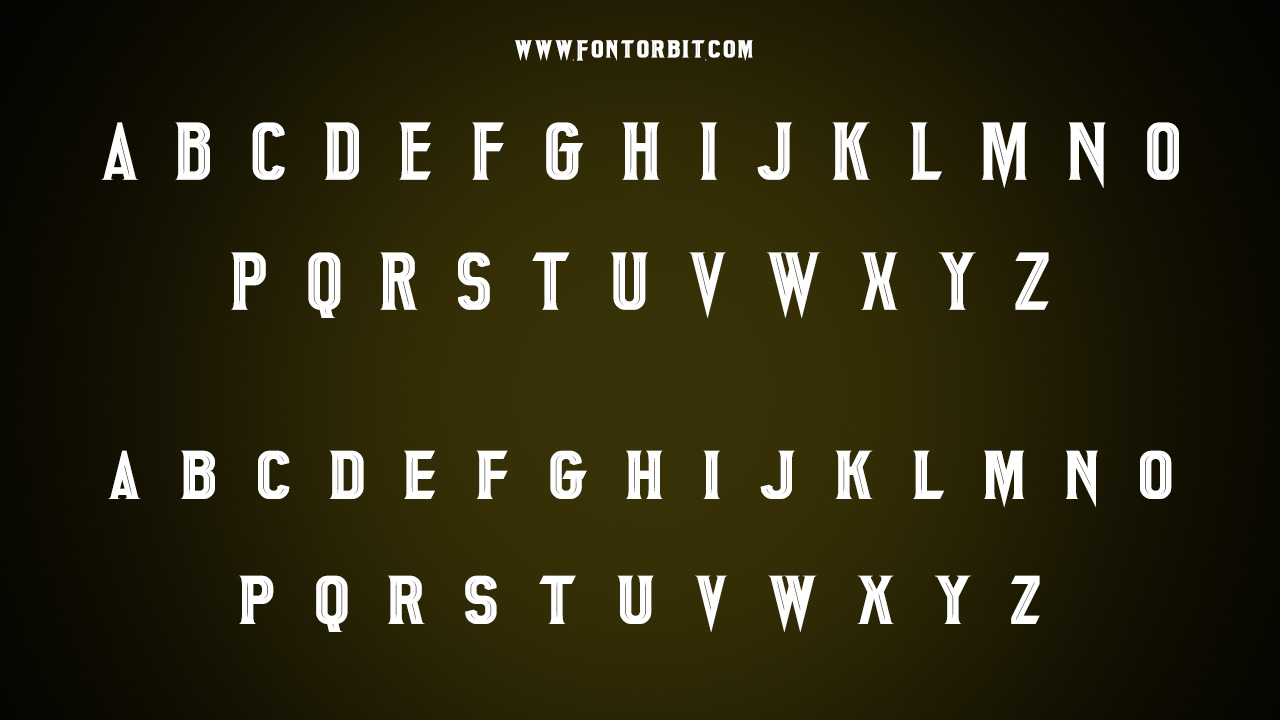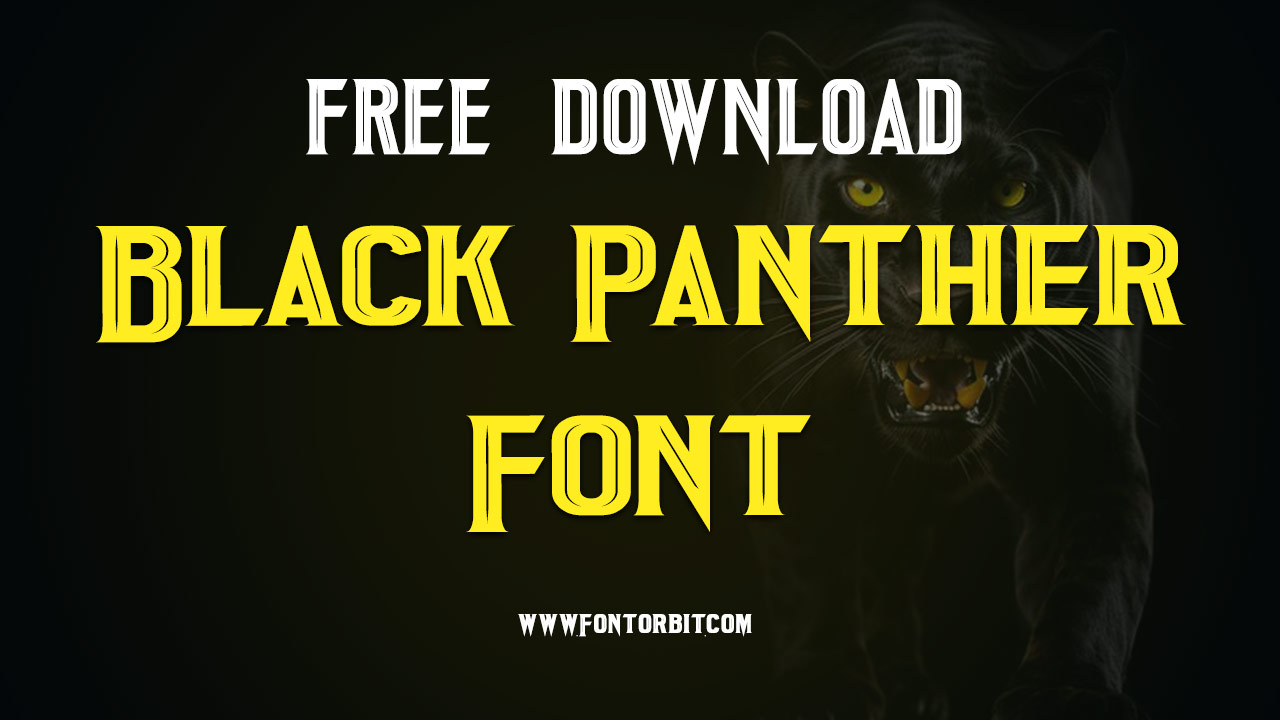
The Black Panther font draws inspiration from the sleek and powerful aesthetic of the Marvel superhero “Black Panther.” While not a single font but a series of similar fonts, designers such as Mark Simonson have contributed to the creation of typefaces like Panther Black, a bold and striking font style. The font was popularized around the release of the Black Panther movie in 2018.
The Black Panther font family features a variety of bold, modern typefaces suitable for various design applications. While the exact font family varies depending on the source, some common styles include:
Panther Black Regular
The Black Panther font is widely recognized for its association with the “Black Panther” movie, making it ideal for use in fan art, posters, promotional materials, and even branding. Its bold, strong presence makes it a go-to choice for attention-grabbing projects. The font also complements action-packed, futuristic, or Afro-futurist design themes.
This font is perfect for large, impactful headlines, movie posters, banners, and other promotional materials. It works well in projects requiring a strong, dynamic, and modern look. Designers often use it in pop culture references, especially when creating designs inspired by comics, action films, or African heritage themes.
The Black Panther font is a bold and visually striking typeface that encapsulates the powerful essence of its namesake superhero. Whether you’re working on a fan project, a promotional poster, or any design requiring boldness, this font offers versatility and impact. Its connection to pop culture and futuristic design trends makes it a valuable tool for any designer.
4.Who Designed The Black Panther Font?
While there isn’t a single designer attributed to all versions, Mark Simonson is known for the “Panther Black” variation.
5.When Was The Black Panther Font Popularized?
The font gained significant attention in 2018, with the release of the Marvel “Black Panther” movie.